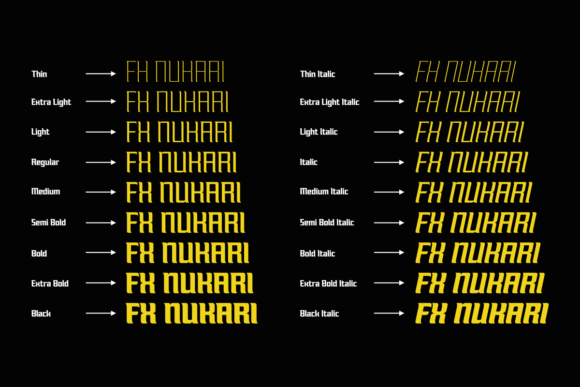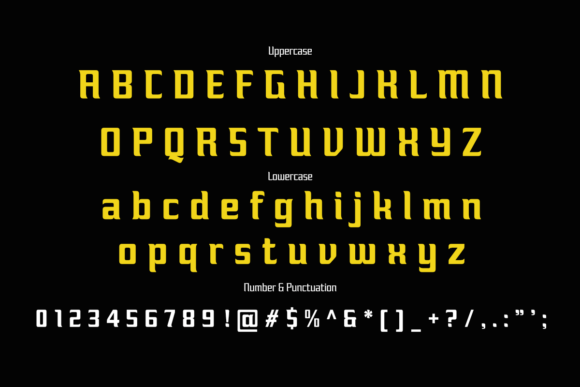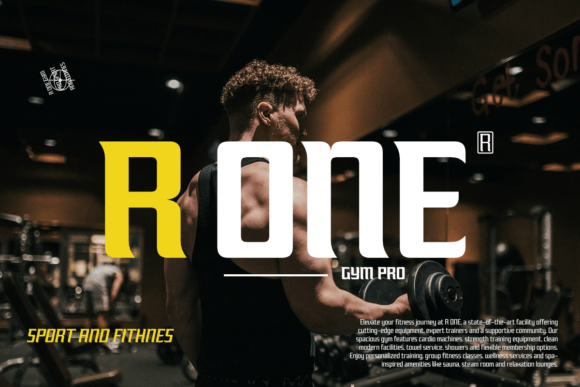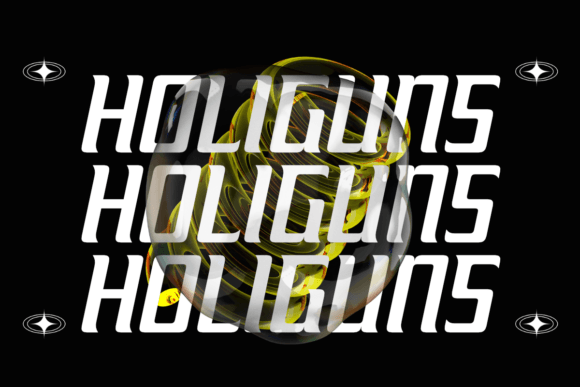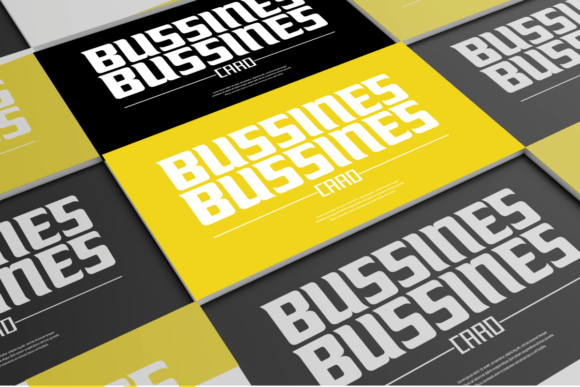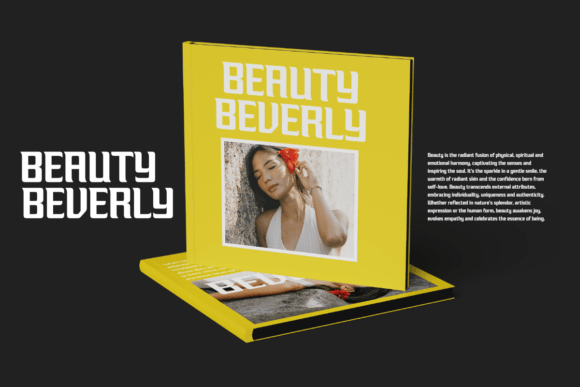
Unleash Creative Brilliance with Fx Nukari Font: The Ultimate Display Font Experience
In the realm of typography, few fonts manage to capture the essence of innovation and versatility as effectively as the Fx Nukari Font. This extraordinary display font lineage is designed to transform your design narratives, offering an extensive palette of 18 styles that cater to a wide array of creative needs. Whether you’re a designer, a craftsperson, or a branding expert, Fx Nukari is poised to become your go-to typographic tool for crafting visually stunning and impactful designs.
The Allure of Fx Nukari
Fx Nukari’s allure lies in its unique blend of expressiveness and adaptability. This font isn’t just a means to convey a message; it’s an integral part of the storytelling process, capable of evoking emotions and adding depth to your designs. With its extensive range of styles, Fx Nukari allows you to experiment with different moods and aesthetics, ensuring that your creative vision is always at the forefront.
Versatility at Its Core
One of the standout features of Fx Nukari is its remarkable versatility. This font is not limited to a single application or industry; it’s incredibly adaptable, making it suitable for a myriad of uses. Here are just a few examples of where Fx Nukari can make a significant impact:
- Crystal Clear Documents: For those who require a professional edge, Fx Nukari offers the clarity and readability needed for documents that demand attention to detail.
- Captivating News Headlines: Make your headlines pop with Fx Nukari’s bold and expressive styles, guaranteed to capture the reader’s attention.
- Remarkable Logo Signatures: Create a lasting impression with a custom logo that embodies your brand’s personality, thanks to Fx Nukari’s distinctive character.
- Product Branding and Beyond: Elevate your product branding with a font that can adapt to various product lines and marketing materials, maintaining consistency across your brand’s visual identity.
Why Choose Fx Nukari?
Choosing Fx Nukari for your typographic needs comes with a multitude of benefits:
- Expressive Typography: With 18 styles to choose from, you have the freedom to experiment and find the perfect tone for your message.
- High Readability: Despite its decorative nature, Fx Nukari maintains a high level of readability, making it suitable for both display and body text.
- Unique Character: Stand out from the crowd with a font that brings a distinct personality to your designs.
Incorporating Fx Nukari into Your Design Workflow
Integrating Fx Nukari into your design workflow is straightforward and beneficial. Here are some tips to get you started:
- Experiment with Styles: Don’t be afraid to try out different styles to see which one best suits your project’s needs.
- Pairing Fonts: For projects requiring multiple fonts, Fx Nukari pairs well with a variety of typefaces, adding depth and interest to your designs.
- Customization: Take advantage of Fx Nukari’s versatility by adjusting size, color, and spacing to fit your design’s aesthetic.
Fx Nukari Font stands as a testament to the power of typography in design. Its innovative display styles, extensive versatility, and adaptability make it an invaluable asset for designers and crafters looking to elevate their work. By incorporating Fx Nukari into your font repertoire, you’re not just choosing a font; you’re embracing a design philosophy that prioritizes creativity, expressiveness, and impact. Welcome Fx Nukari into your creative process and discover a world of limitless design possibilities.